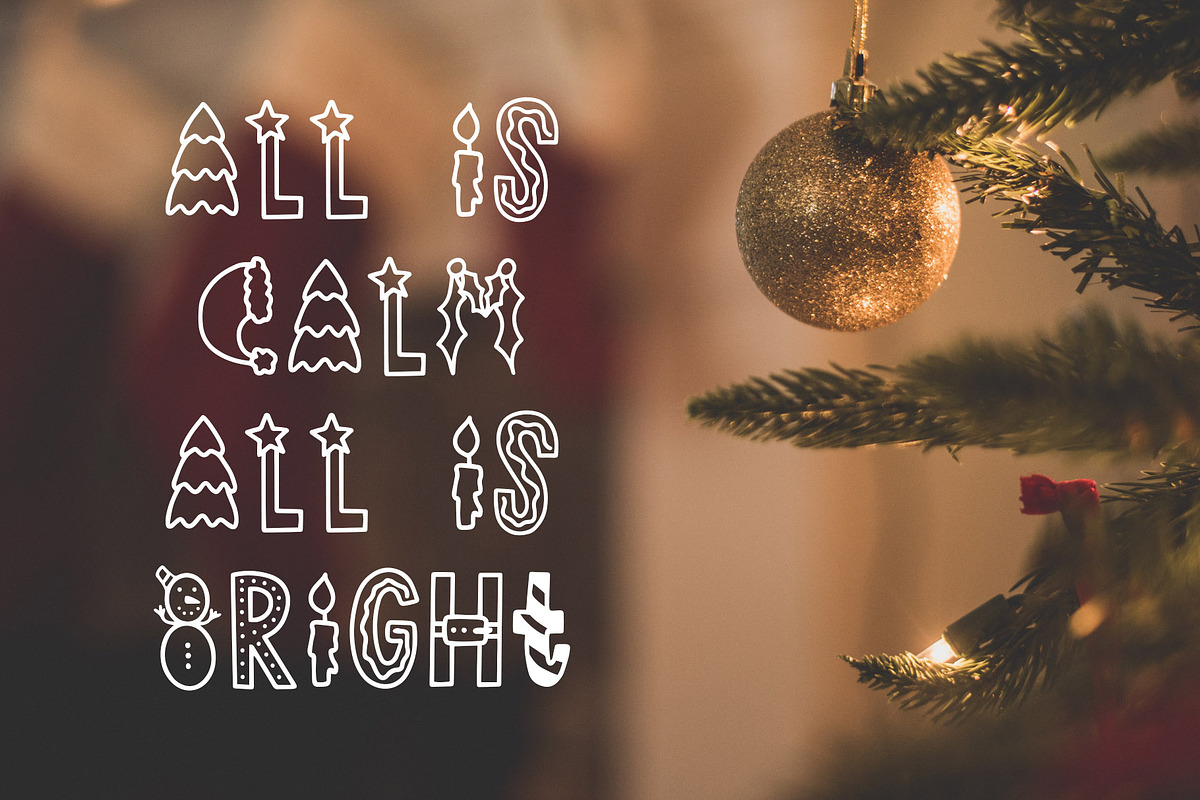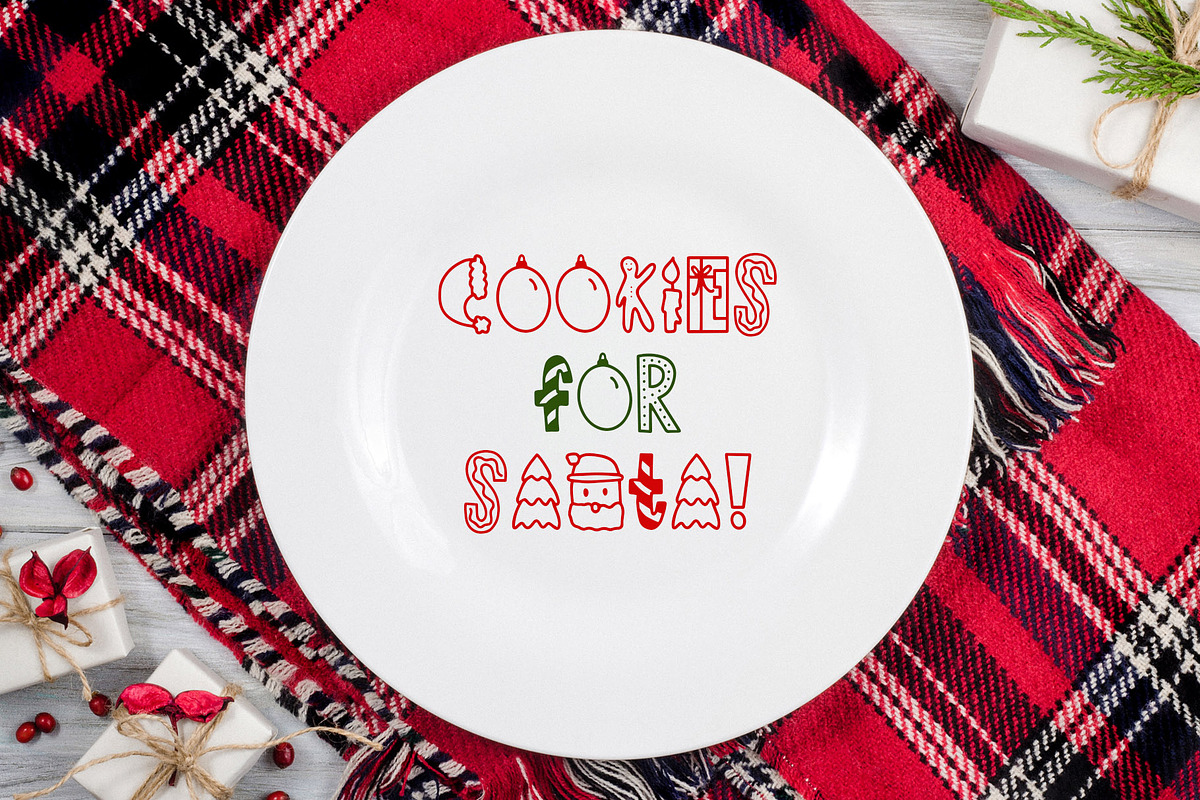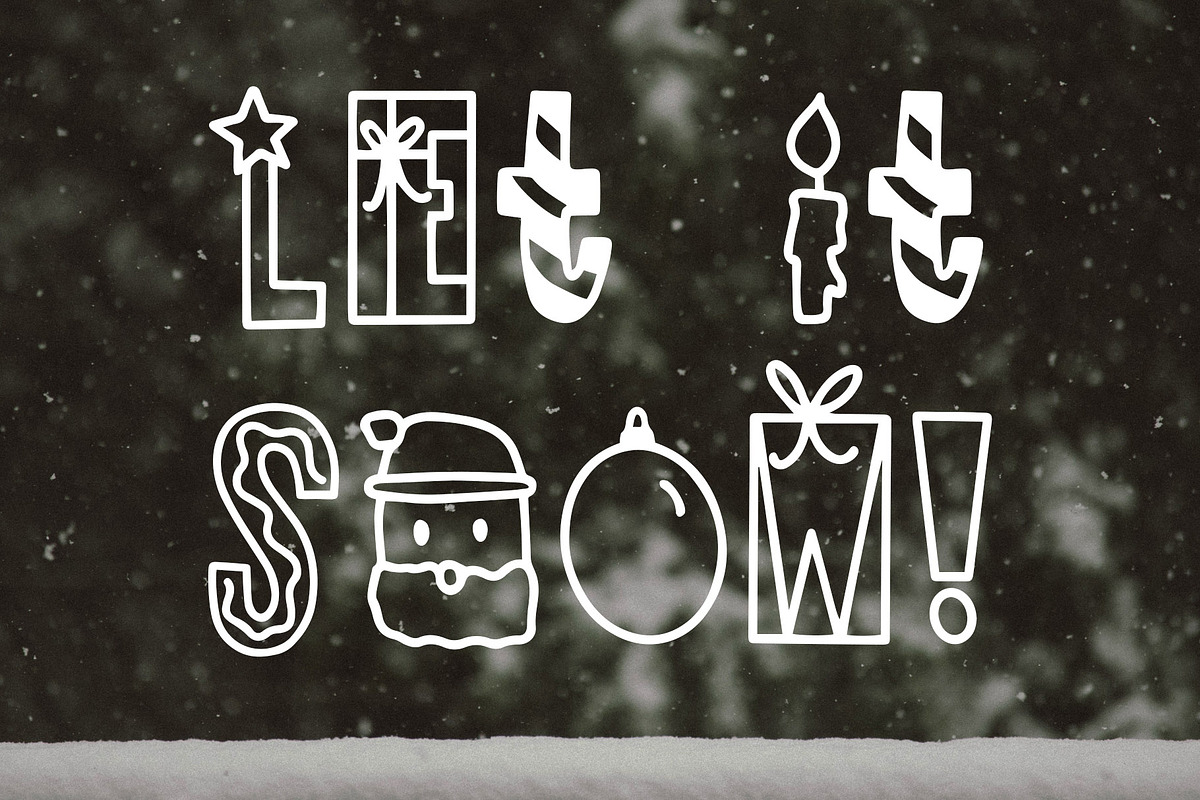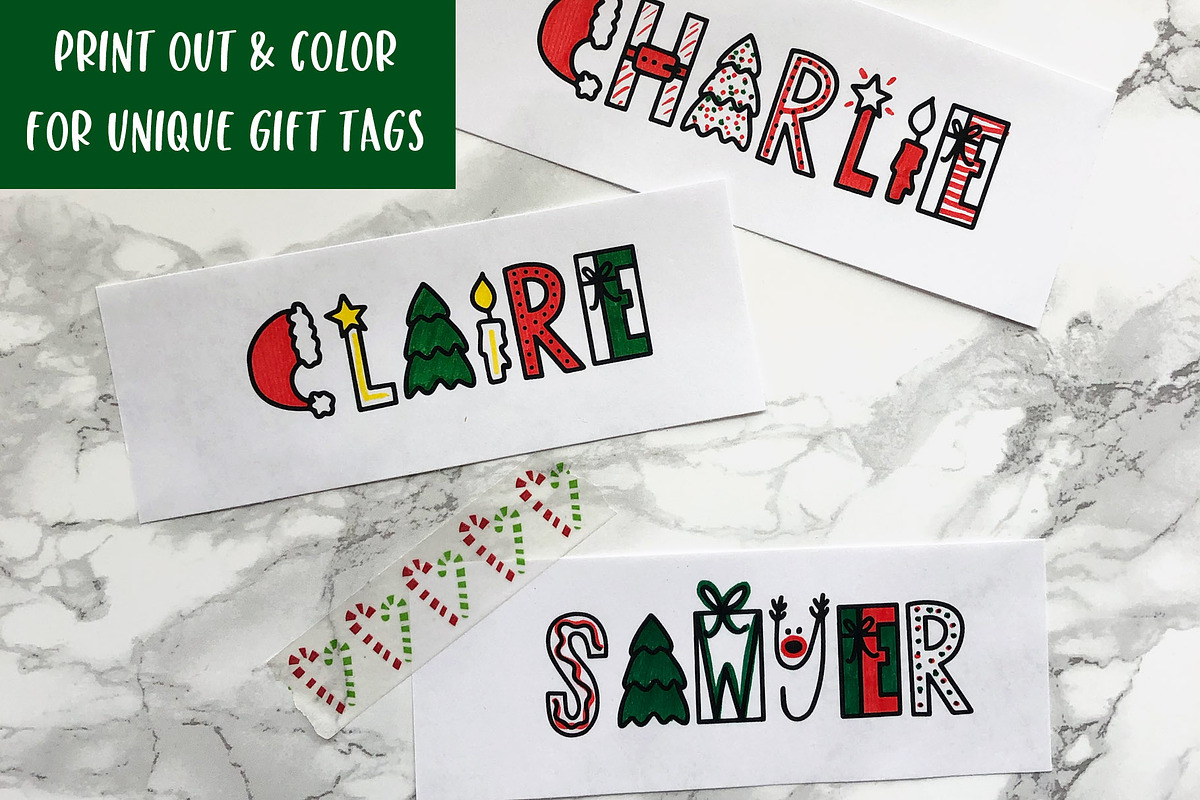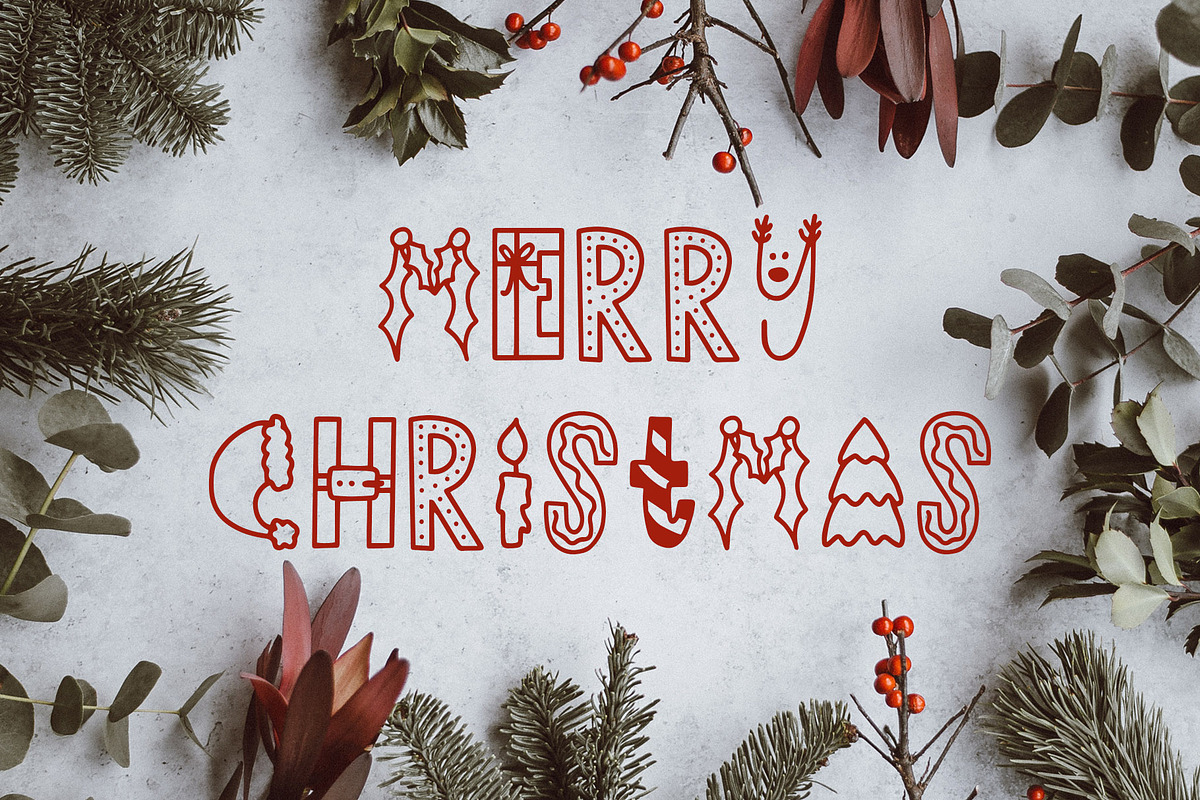
Dasher, A Holiday Symbols Font
Dasher is a hand drawn holiday symbols font. It includes 26 characters, 0-9 numbers, and select symbols. Use it for gift tags, holiday party invites, t-shirt designs, and more!
Letters A-Z (also in the lowercase characters incase you forget to put the caps lock on!)